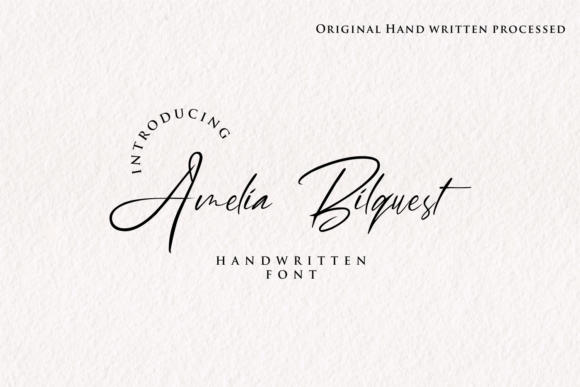
Discover the Charm of Amelia Bilquest Font: Elevate Your Designs with its Playful Elegance
In the world of typography, few fonts manage to capture the essence of playfulness and elegance simultaneously. However, Amelia Bilquest Font stands out as a remarkable exception. This lovely script font is designed to infuse your creative projects with a unique charm, making your designs not only stand out but also speak with a distinct voice. In this article, we’ll dive into the characteristics of Amelia Bilquest Font, explore its uses, and discuss how it can elevate your design work.
The Distinctive Features of Amelia Bilquest Font
Amelia Bilquest Font is distinguished by its charming, playful characters that seem to dance along the baseline. This dynamic movement gives the font a lively and energetic feel, making it perfect for projects that require a touch of whimsy and sophistication. The font’s script style is meticulously crafted to ensure that each letter complements the others, creating a harmonious flow that is both visually appealing and easy to read.
Why Choose Amelia Bilquest Font?
There are several reasons why Amelia Bilquest Font should be your go-to choice for your next design project:
- Versatility: Amelia Bilquest Font is incredibly versatile, making it suitable for a wide range of applications, from wedding invitations and branding materials to digital content and craft projects.
- Elegance and Playfulness: The font strikes a perfect balance between elegance and playfulness, allowing designers to add a sophisticated yet fun touch to their work.
- Readability: Despite its decorative nature, Amelia Bilquest Font maintains a high level of readability, ensuring that your message is conveyed clearly and effectively.
- Uniqueness: In a sea of fonts, Amelia Bilquest stands out due to its unique character and style, giving your designs a distinctive look that captures attention.
Using Amelia Bilquest Font in Your Designs
Integrating Amelia Bilquest Font into your projects is straightforward, and its flexibility allows it to be used in various contexts:
Digital Design
For digital content, such as blog headers, social media graphics, and website titles, Amelia Bilquest Font can add a personal and engaging touch. Its playful elegance can help to set the tone for your brand’s online presence, making your digital content more inviting and memorable.
Print Design
In print design, Amelia Bilquest Font shines in applications like invitations, business cards, and posters. Its charming and elegant appearance can elevate your print materials, making them stand out and leave a lasting impression on your audience.
Crafting and DIY Projects
Crafters and DIY enthusiasts will also find Amelia Bilquest Font to be a valuable asset. Use it to add a personalized touch to handmade cards, scrapbooking, and other craft projects. The font’s unique style can help your creations to stand out and showcase your creativity.
Tips for Working with Amelia Bilquest Font
To make the most of Amelia Bilquest Font, consider the following tips:
- Pair it Wisely: Combine Amelia Bilquest Font with complementary fonts to create visual interest and hierarchy in your designs.
- Experiment with Colors: The font looks great in various colors, so don’t be afraid to experiment and find the perfect hue that matches your project’s theme.
- Adjust Letter Spacing: Tweaking the letter spacing can enhance the font’s flow and readability, ensuring your text is both beautiful and legible.
| Font Name | Amelia Bilquest Font |
Amelia Bilquest Font is a versatile and charming script font that can add a unique touch to your designs. Its playful elegance, combined with its readability and uniqueness, makes it an excellent choice for a wide range of projects. Whether you’re a designer looking to elevate your professional work or a crafter seeking to add a personal touch to your DIY projects, Amelia Bilquest Font is sure to inspire and enhance your creative endeavors.